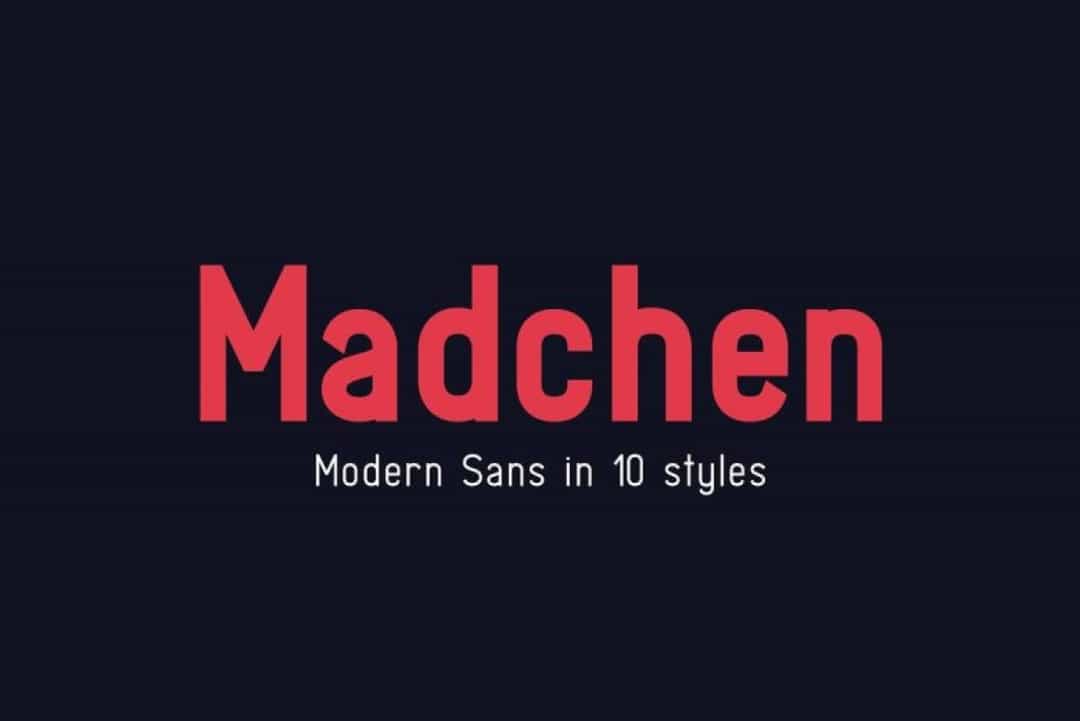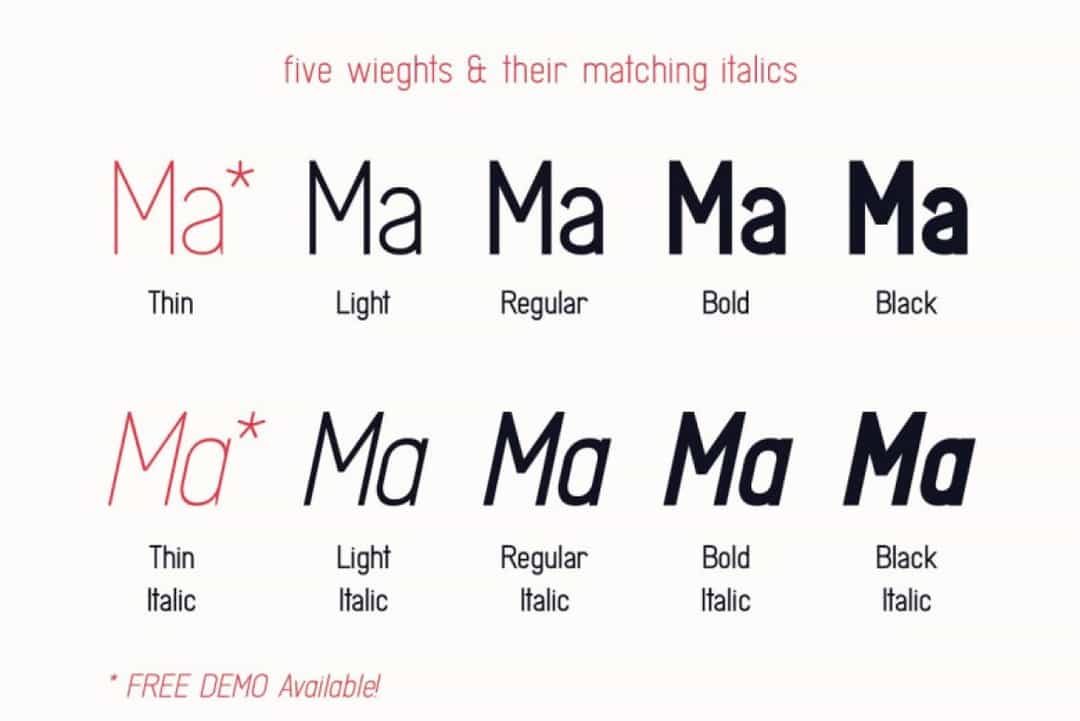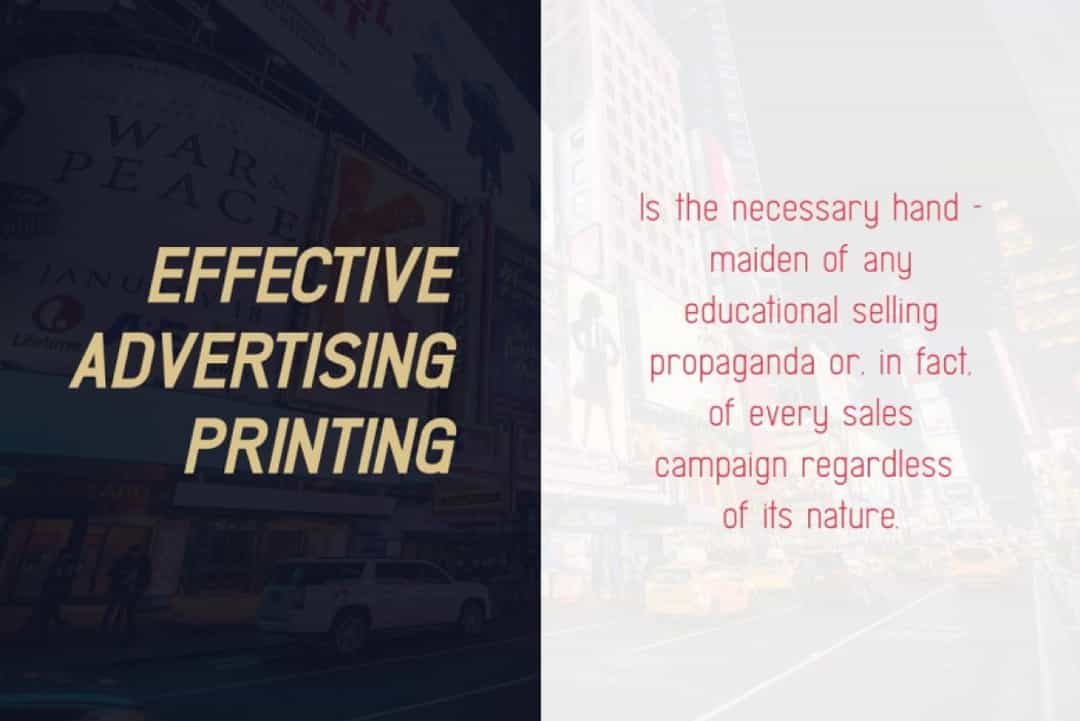
Madchen features 10 modern sans serif styles with geometric and slightly condensed details, perfect for creating eye-catching brands and designs with five weights and italics.